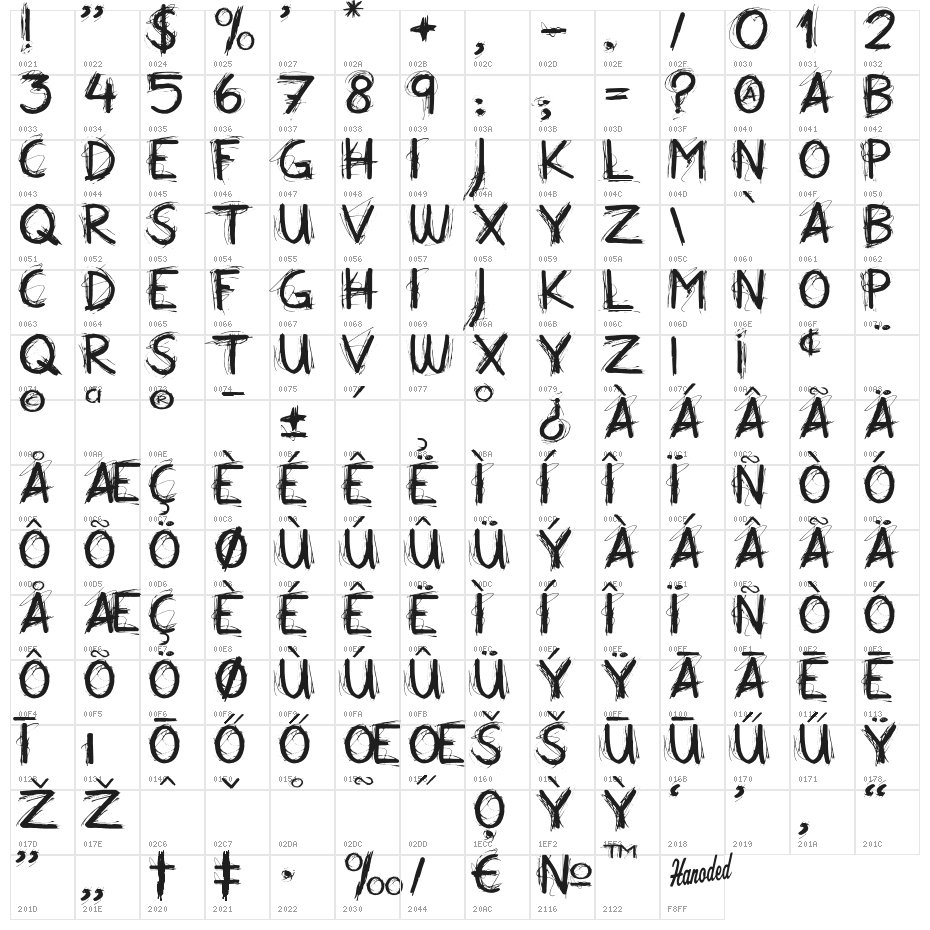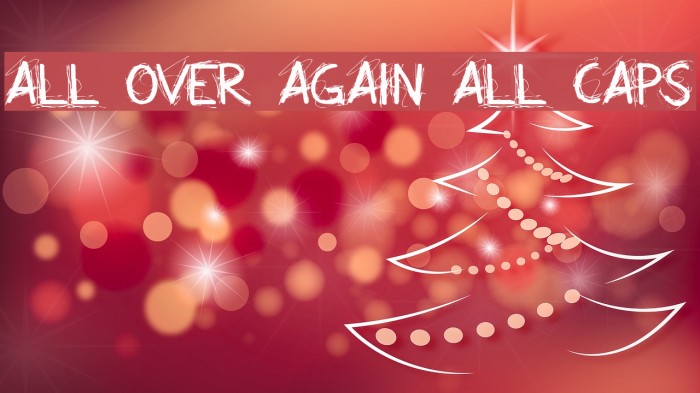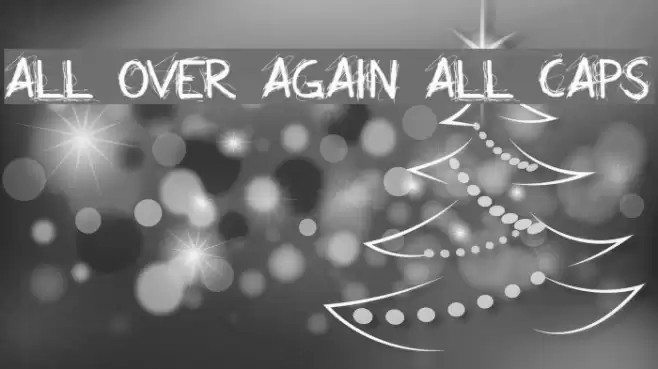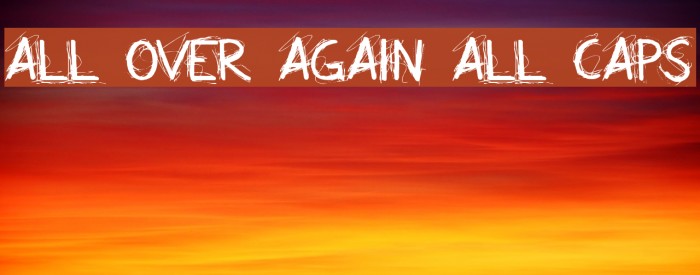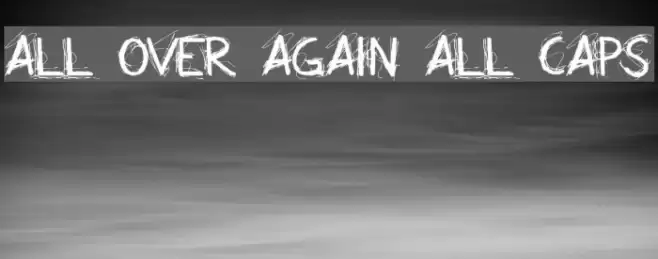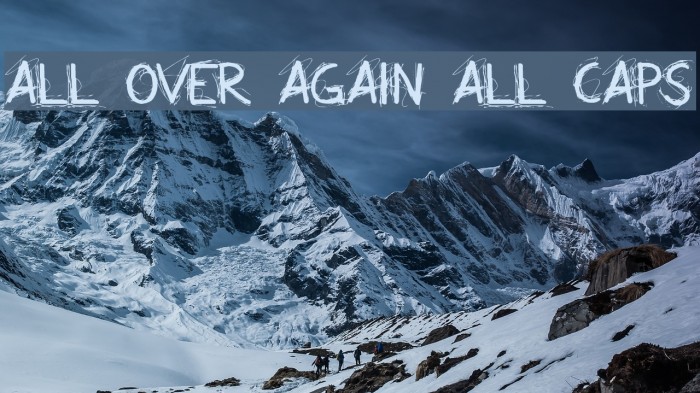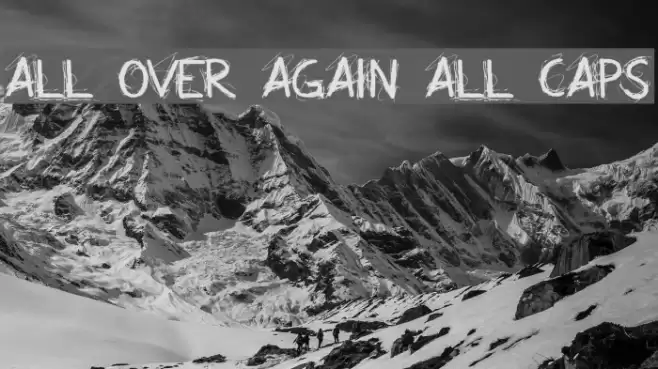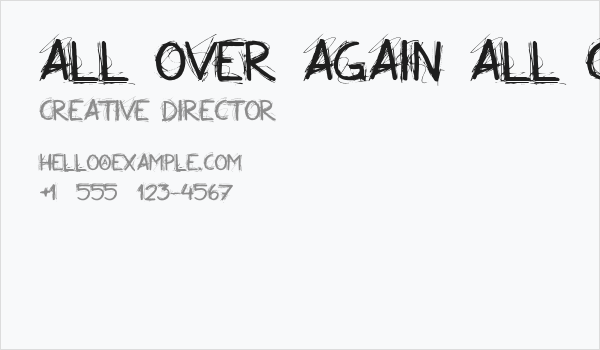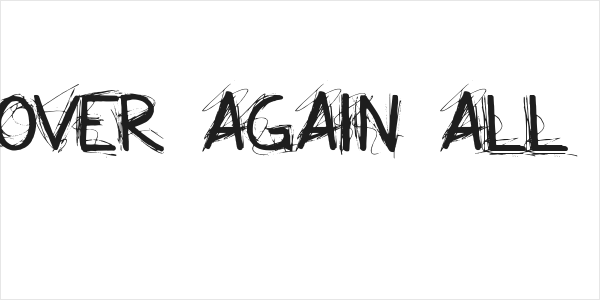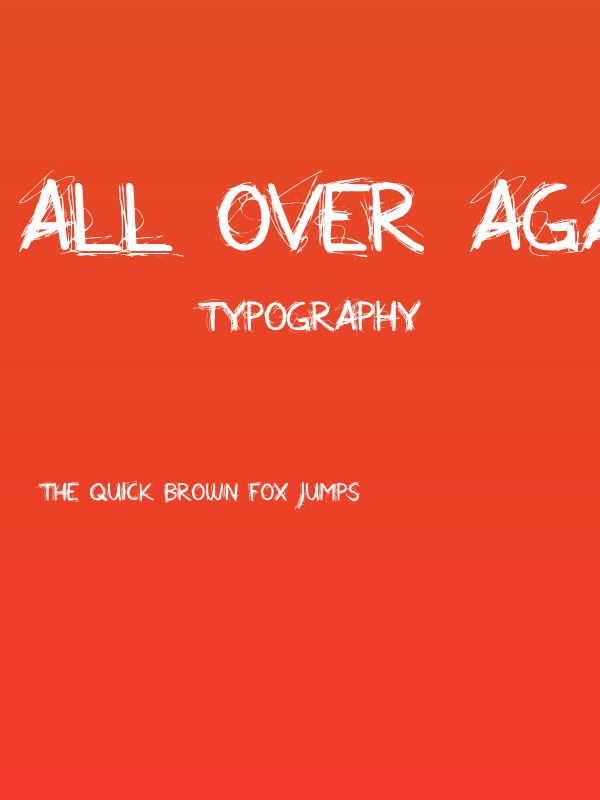
All Over Again All Caps Font
All Over Again All Caps Description
This font features a bold and expressive style with a hand-drawn, sketch-like appearance. The characters are irregular and dynamic, with strokes that vary in thickness, giving a sense of movement and energy. The uppercase letters are prominent and slightly chaotic, while the numbers and special characters maintain the same artistic flair. The overall design is raw and edgy, making it suitable for projects that require a strong visual impact. The font's unique texture and style make it stand out, perfect for creative and unconventional designs.
| Overall Style | Modern, Edgy |
| Use Case | Headlines, Logos, Artistic projects |
| Proposed Projects | Ideal for album covers, posters, graffiti art, and edgy branding projects. |